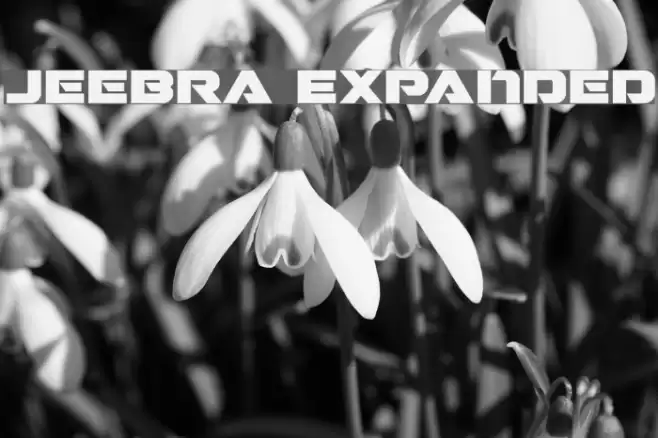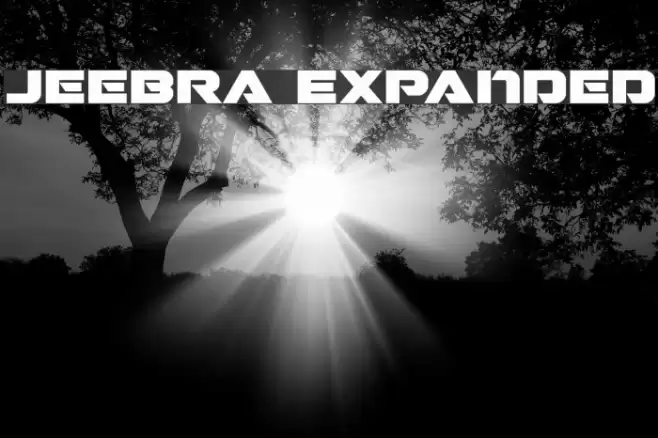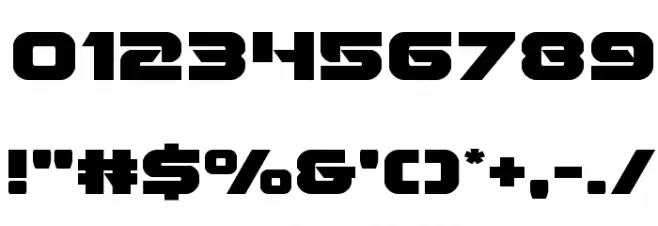
Jeebra Expanded Font
Jeebra Expanded Description
This font features a bold and geometric design with a futuristic flair. The characters are constructed with sharp angles and clean lines, giving it a modern and dynamic appearance. The uppercase and lowercase letters maintain a consistent style, with unique cuts and slants that add visual interest. The numbers are equally bold, ensuring readability while maintaining the font's distinctive style. Special characters are designed to match the overall aesthetic, making this font versatile for various applications. Its expanded width and strong presence make it ideal for attention-grabbing headlines and impactful designs.
A bold, geometric font with a futuristic and dynamic style from Uncategorized fonts.
- Proposed Projects: Ideal for sci-fi themed projects, technology branding, video game titles, and modern advertising campaigns.